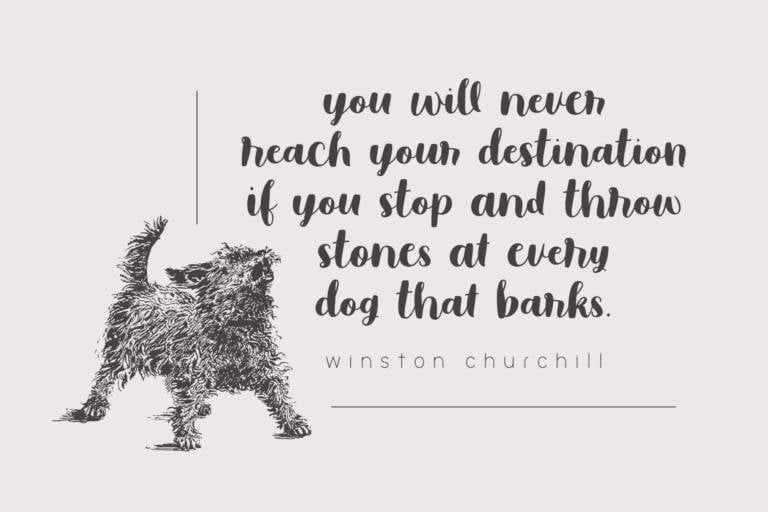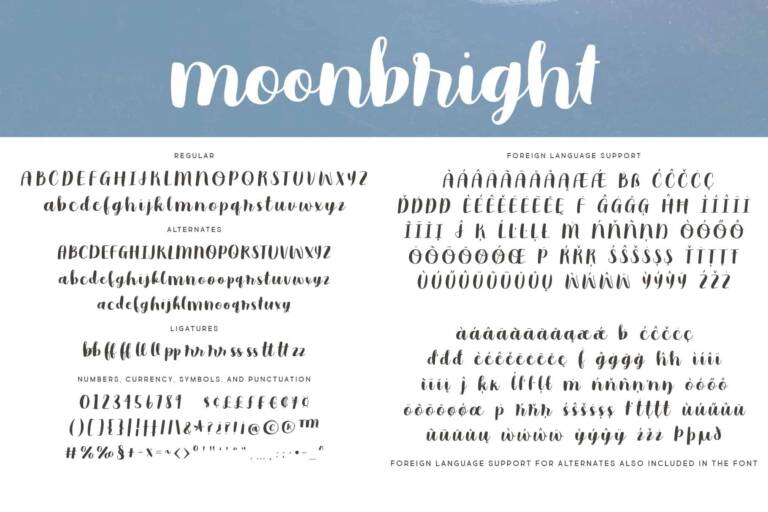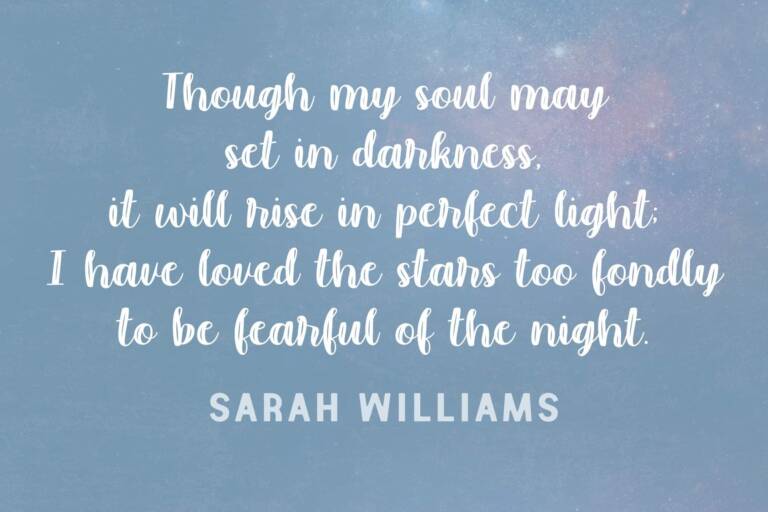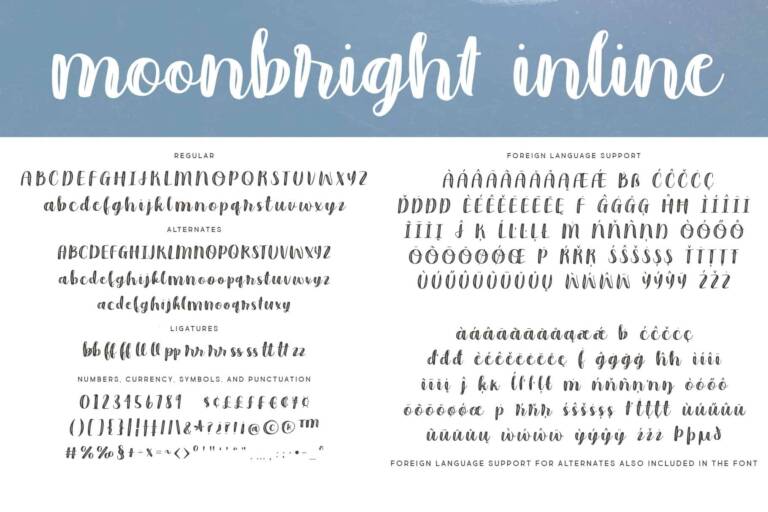
Moonbright Font Family
Moonbright is a cute, chunky script font. Includes most Latin-based foreign language support (see images for accented letters included). Great for headlines or decor! Created in 2019, our Moonbright font contains over 800 glyphs with many alternates and ligatures. Additionally the Moonbright font also has an inline version that gives a different feel for the same characters.